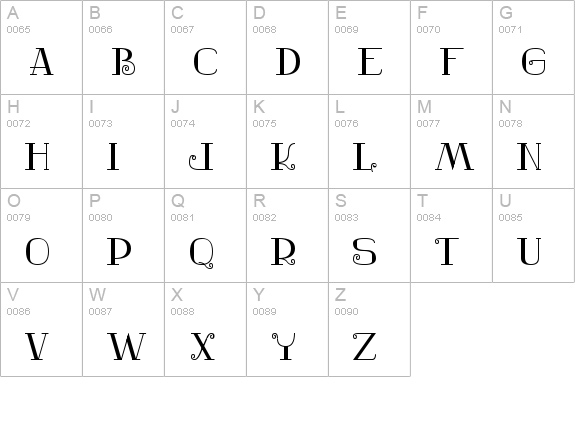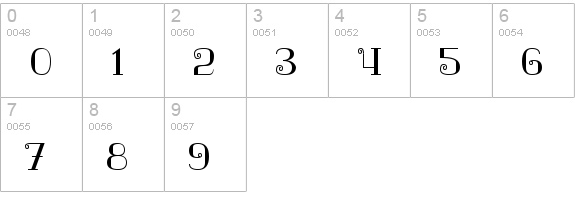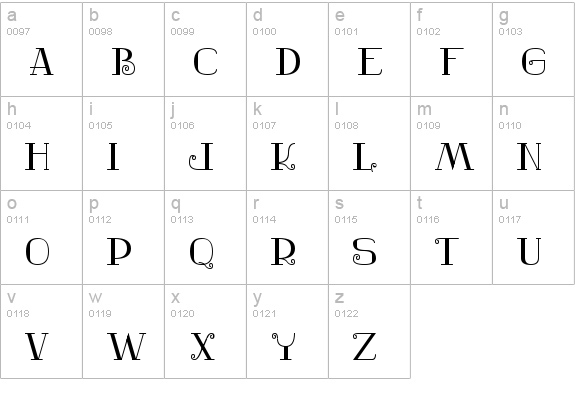
Nostalgic Font Details
Nostalgic Font is a charming and whimsical typeface that evokes a sense of nostalgia and warmth. Its elegant curves and vintage-inspired design make it perfect for adding a touch of retro flair to any project. Whether you're working on a poster, invitation, or logo, Nostalgic Font is sure to make a lasting impression. The best part? Nostalgic Font is completely free to download at FontsMarket.com! With just a few clicks, you can add this delightful font to your collection and start creating beautiful designs that capture the essence of days gone by. Don't miss out on this opportunity to bring a touch of nostalgia to your next project - download Nostalgic Font today and let your creativity soar!